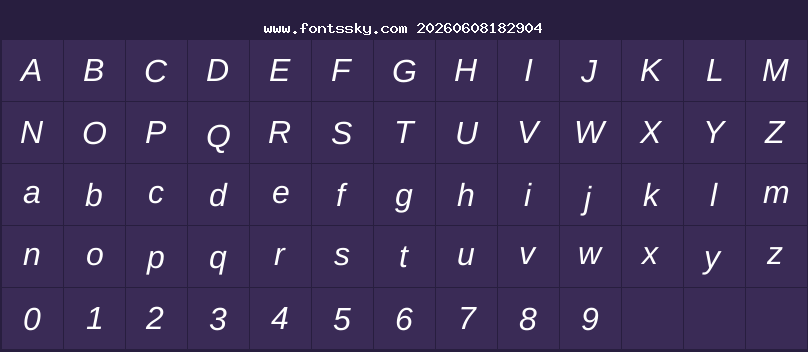
Arimo Preview
• Font Name: Arimo
• Font ID: 1.33;GOOG;Arimo-Italic
• Full Font Name: Arimo Italic
• Version: Version 1.33
• PostScript Name: Arimo-Italic
• Designer: Steve Matteson
• Manufacturer: Monotype Imaging Inc.
• Description: Arimo was designed by Steve Matteson as an innovative, refreshing sans serif design that is metrically compatible with Arial(tm). Arimo offers improved on-screen readability characteristics and the pan-European WGL character set and solves the needs of developers looking for width-compatible fonts to address document portability across platforms.
About Arimo.ttf
Arimo.ttf is a modern, elegant sans-serif font designed for ultimate readability and visual harmony. Perfect for branding, headlines, web design, and print materials.